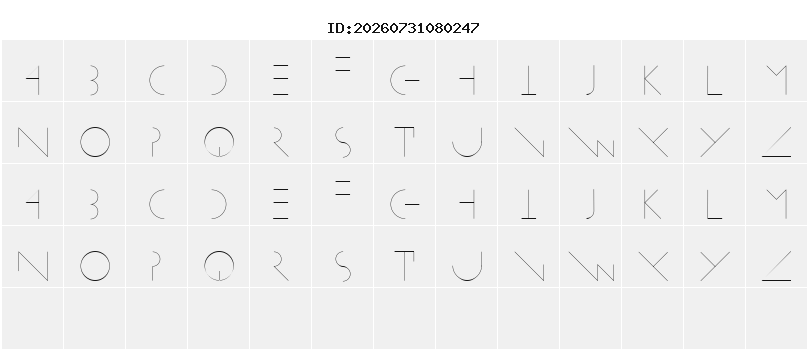
• Font Name: Linearus
Linearus.ttf is a modern, elegant sans-serif font designed for ultimate readability and visual harmony. Perfect for branding, headlines, web design, and print materials.